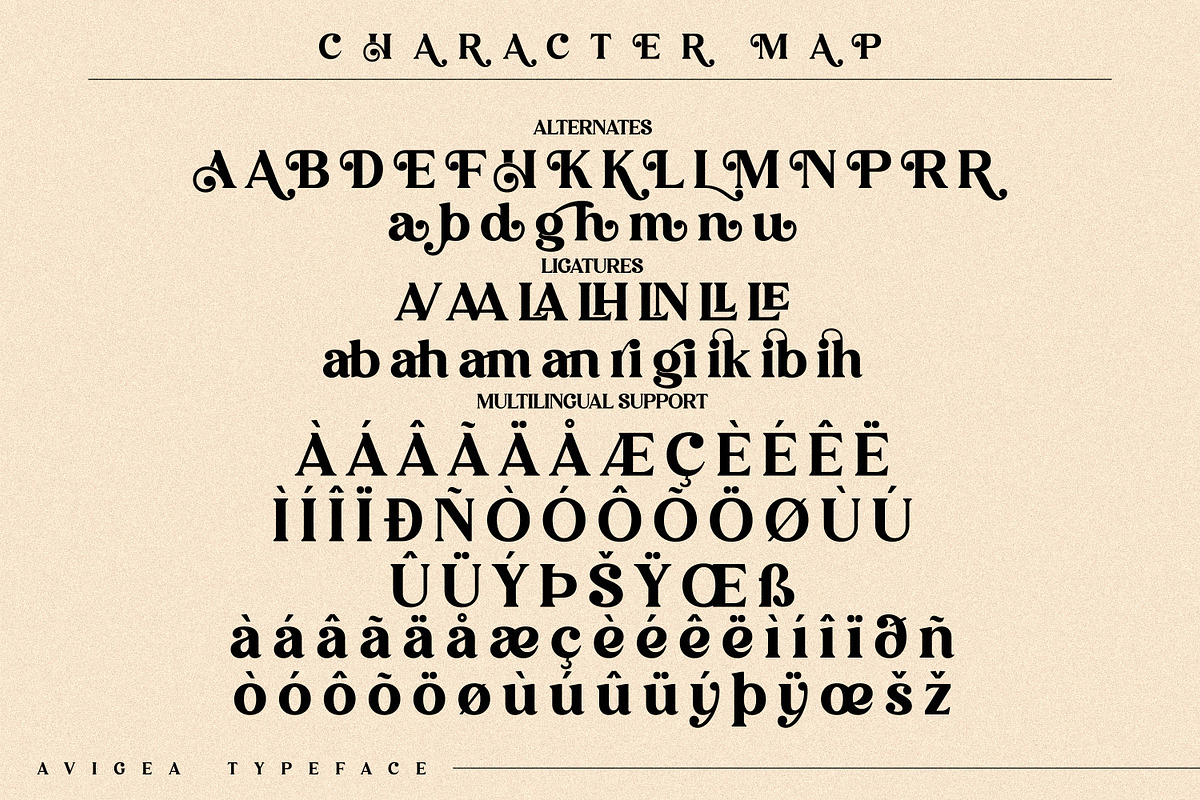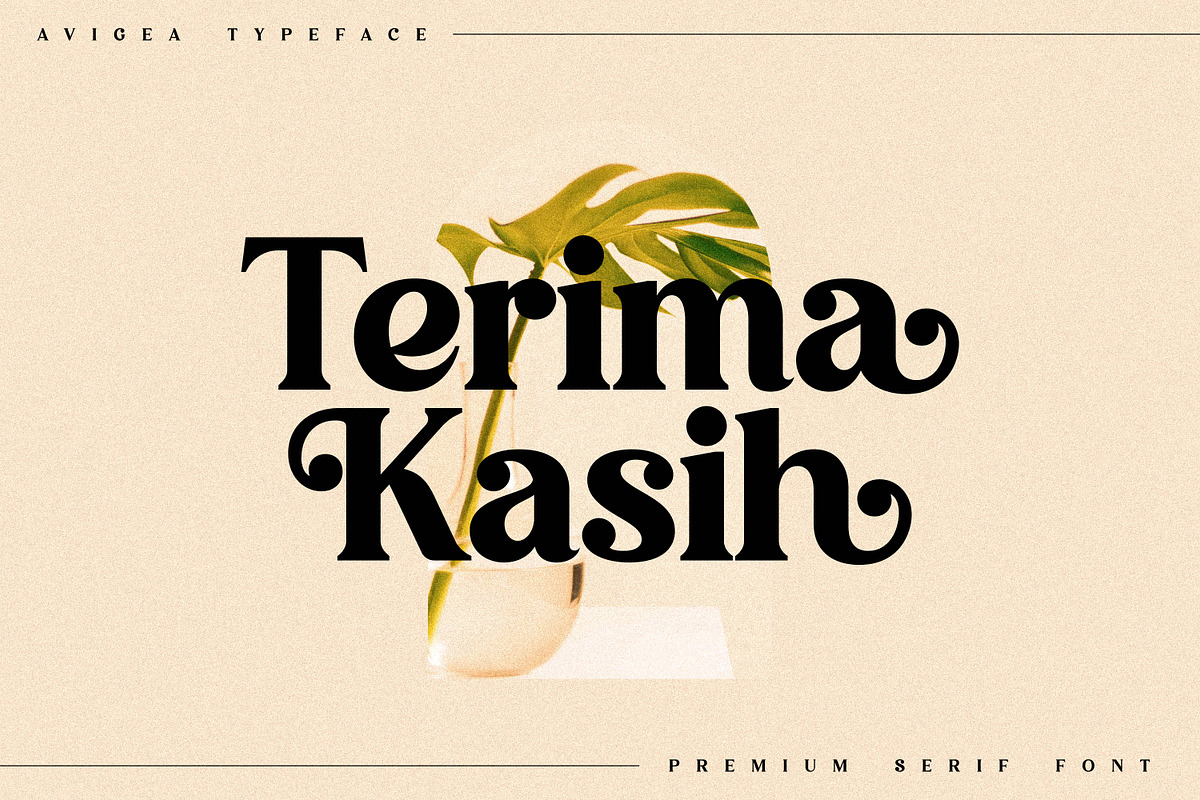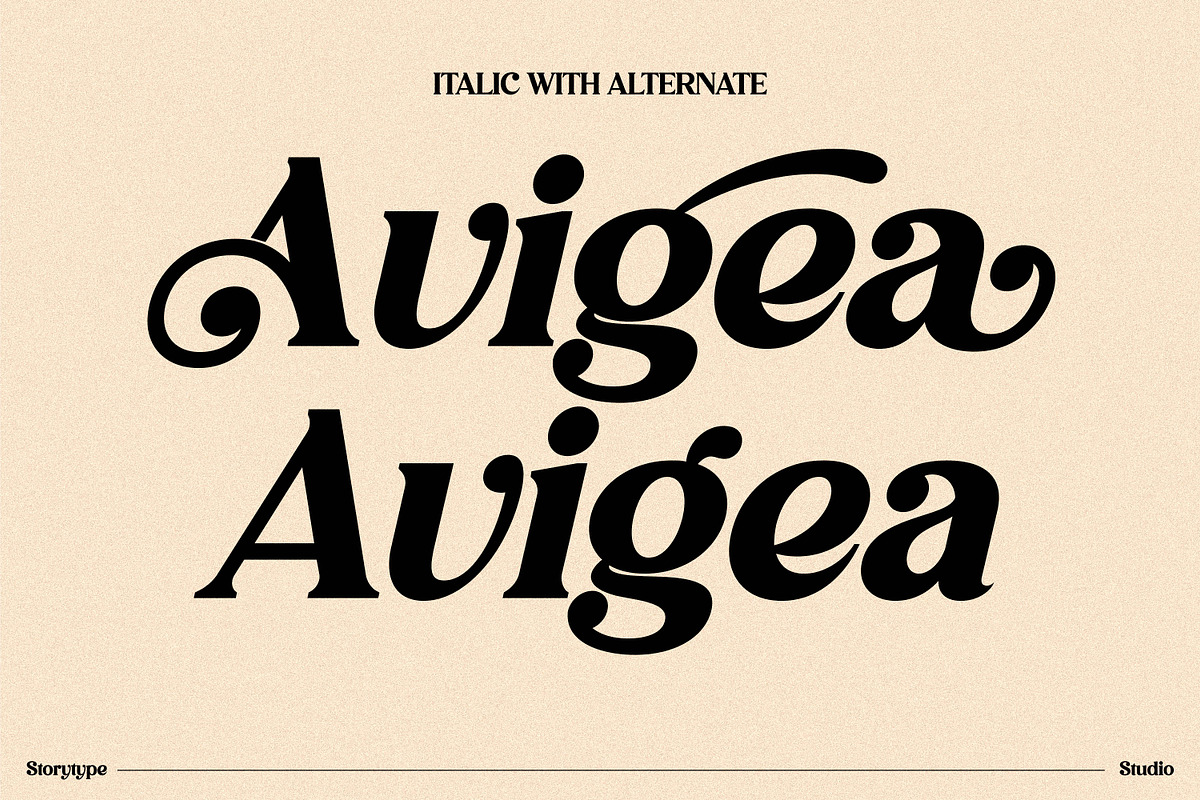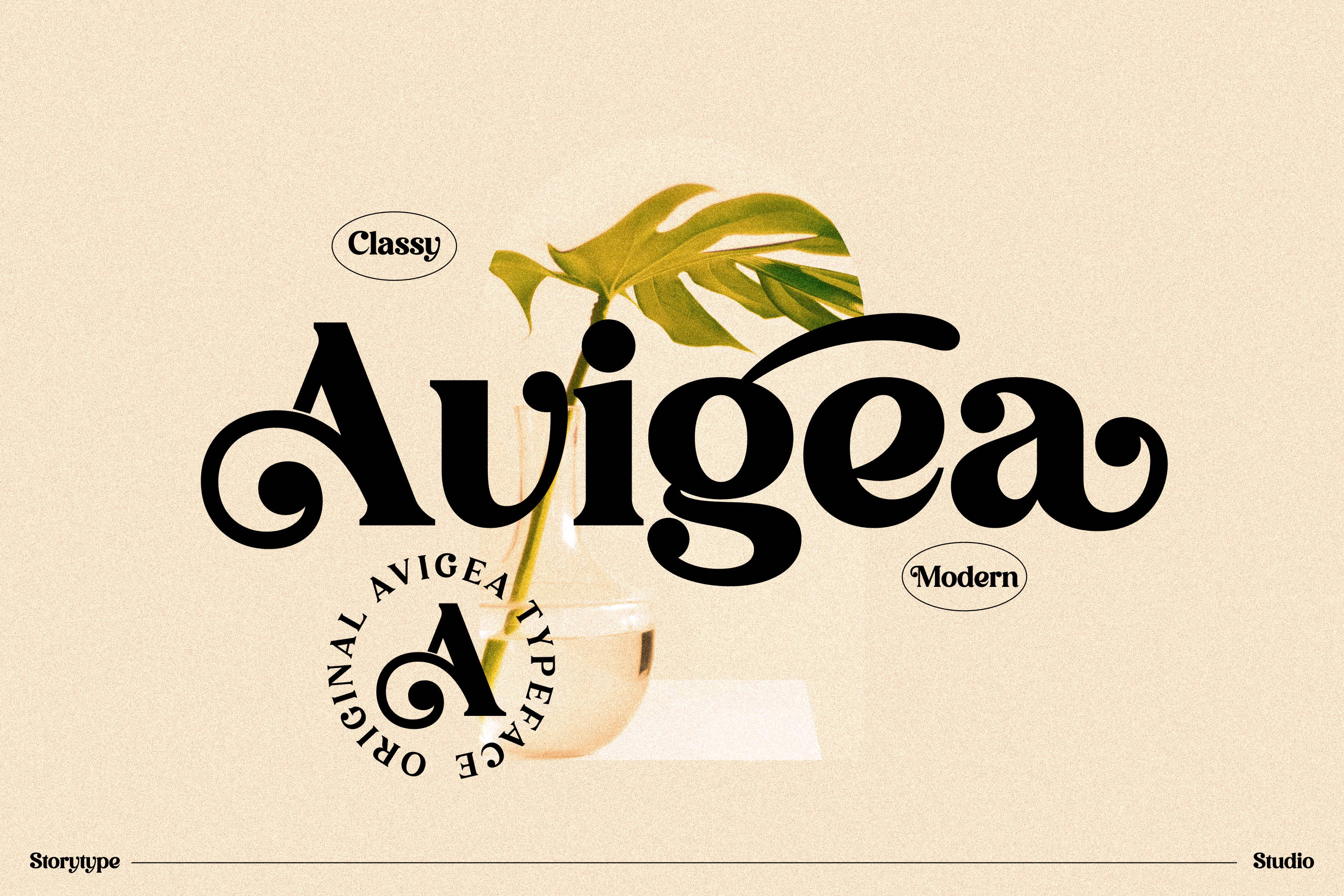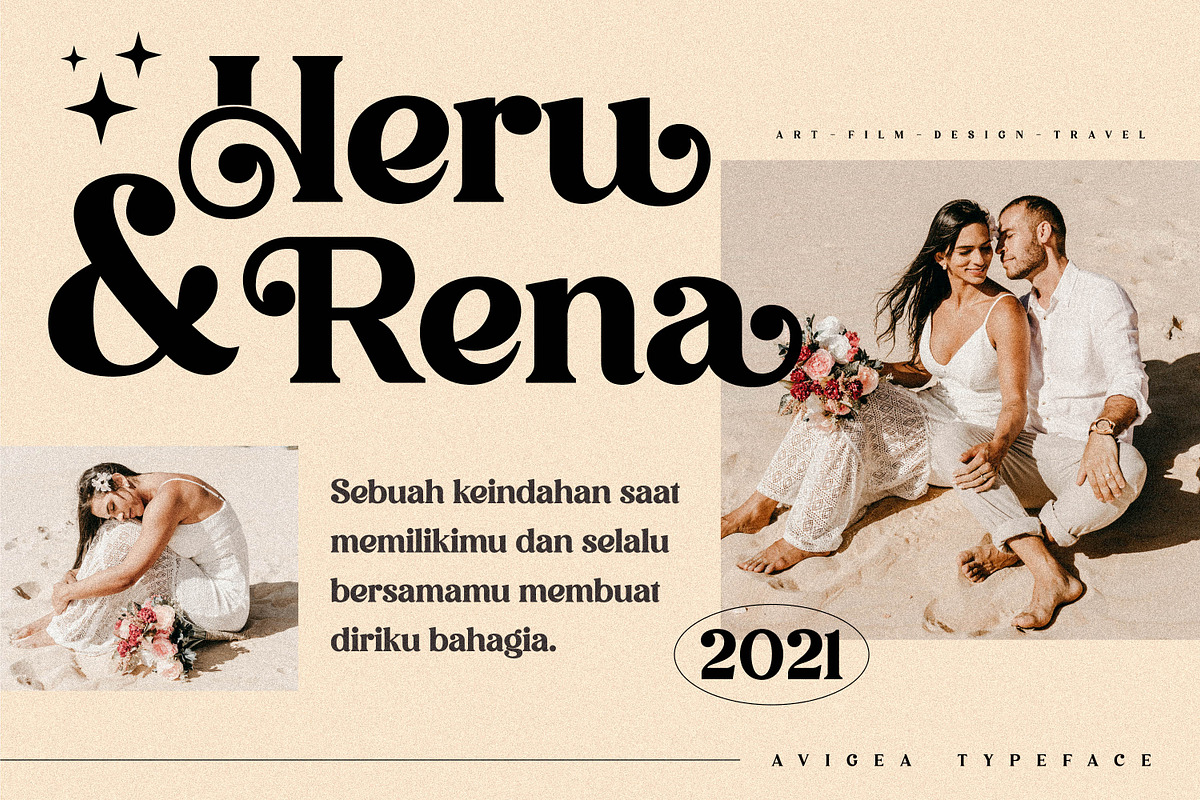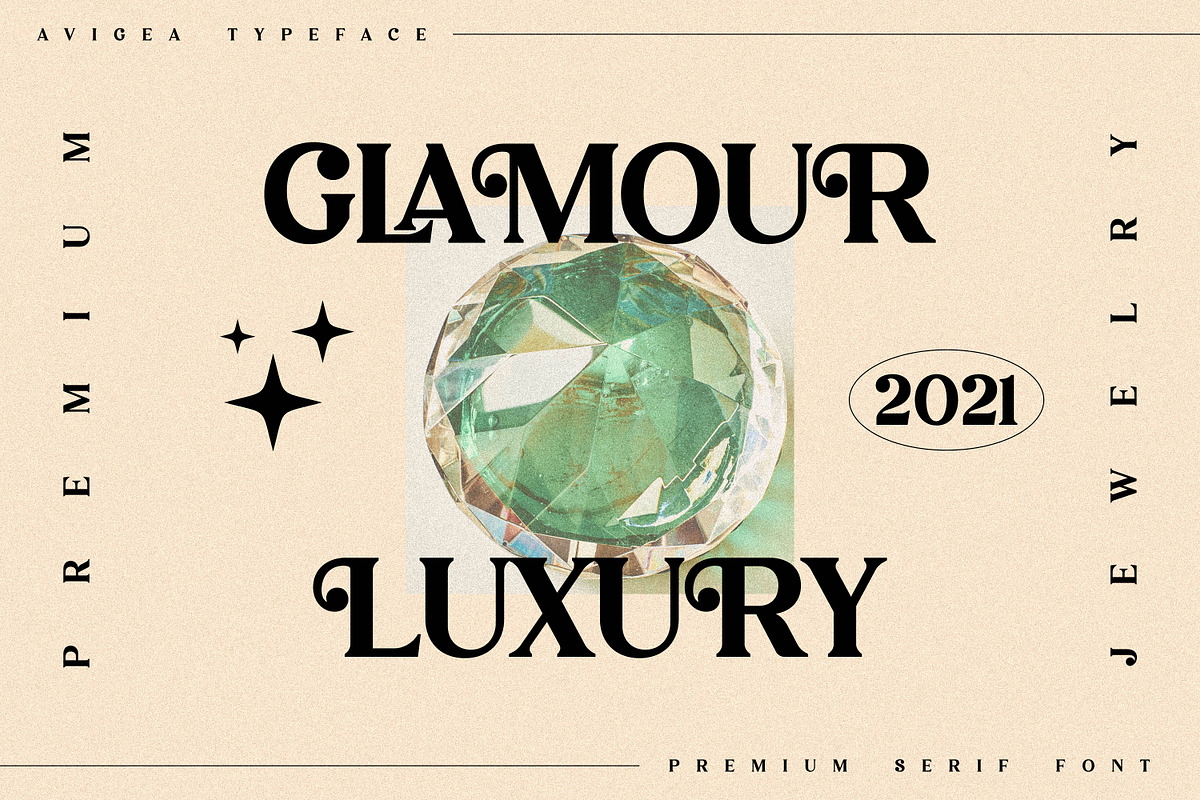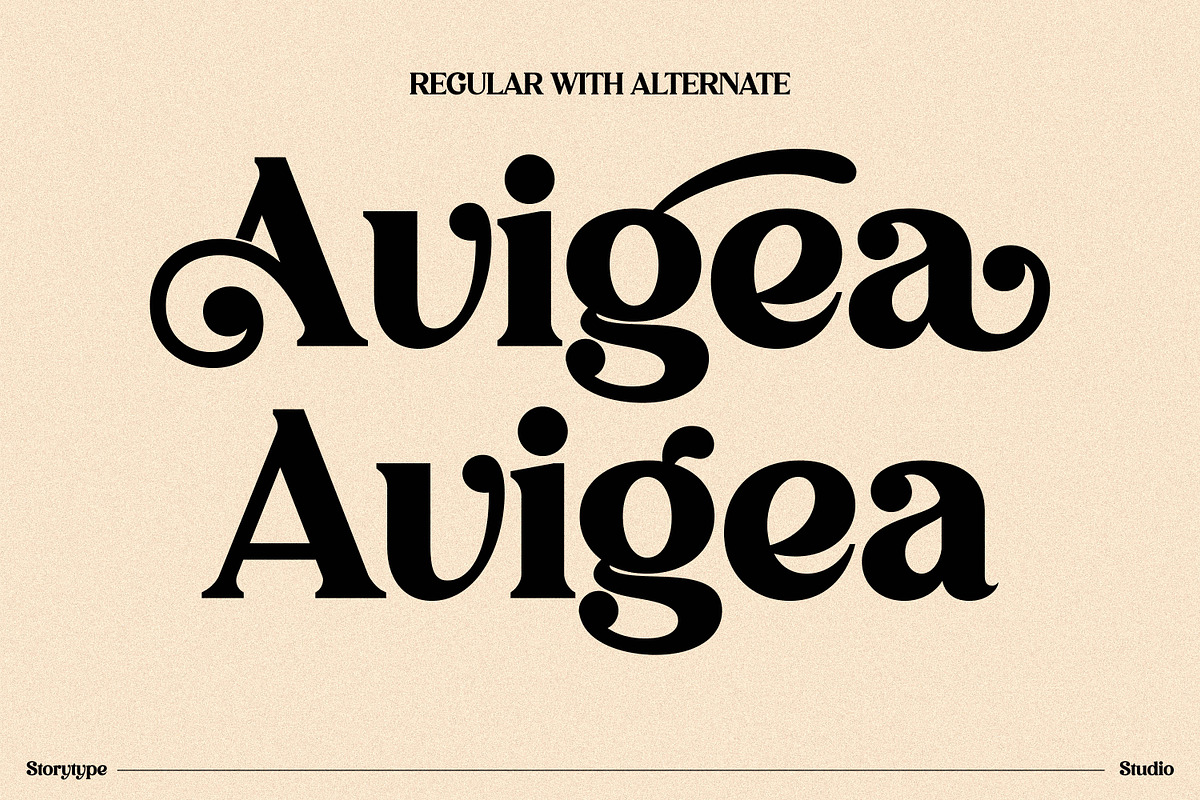
Avigea Modern Serif Font Display
Proudly present Avigea Typeface, created by Storytype, A serif modern and classic typeface that has own unique style & modern look.
This typeface is perfect for an elegant & luxury logo, book or movie title design, fashion brand, magazine, clothes, lettering, quotes, and so much more.